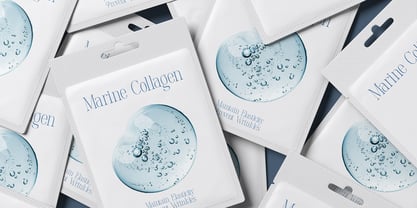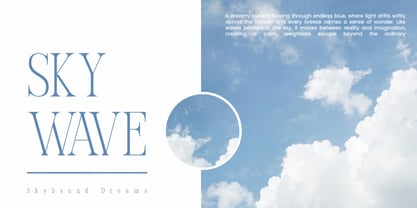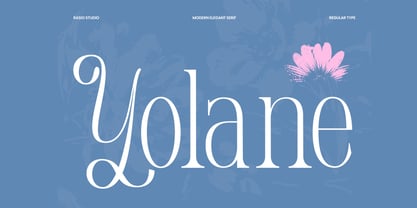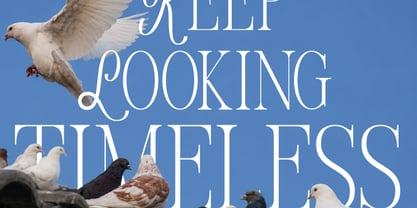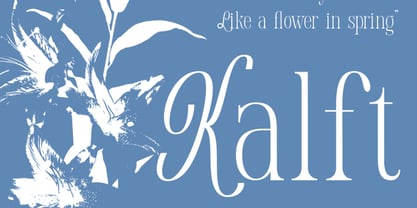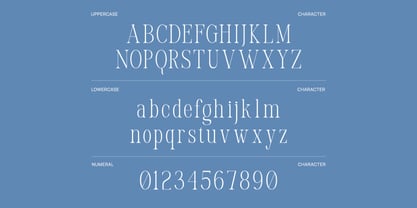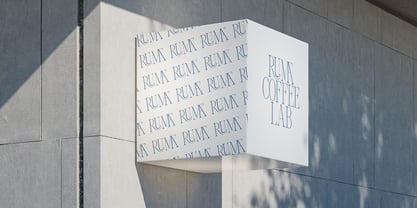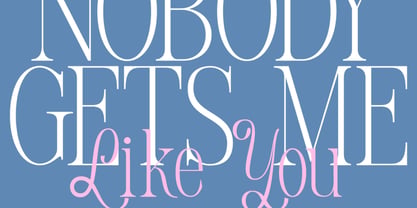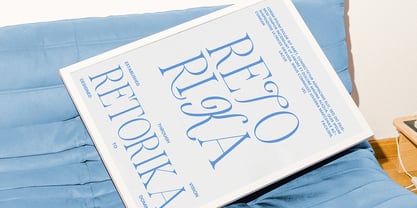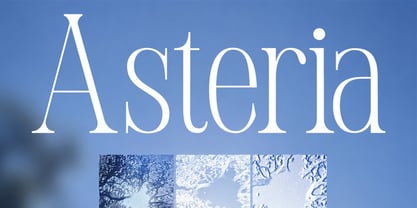
Yolane
by Rasio Studio
The Yolane Font Family was designed by Fajar Indra and published by Rasio Studio. Yolane contains 1 styles. More about this family
Yolane is a refined serif typeface distinguished by its delicate contrast, graceful proportions, and sophisticated character details. The font combines slender strokes with carefully crafted curves, creating a light and airy appearance that feels polished and expressive. Subtle decorative elements, including the distinctive swash-inspired uppercase forms and elegant terminals, add personality without overwhelming the overall composition.
Suitable For Yolane is perfect for fashion branding, beauty and skincare packaging, boutique businesses, wedding stationery, invitation suites, editorial publications, magazine covers, logo design, wordmark creation, product packaging, cosmetic branding, social media campaigns, lifestyle brands, publishing projects, creative agencies, visual identity systems, promotional materials, luxury product presentations, marketing collateral, and elegant typography projects.